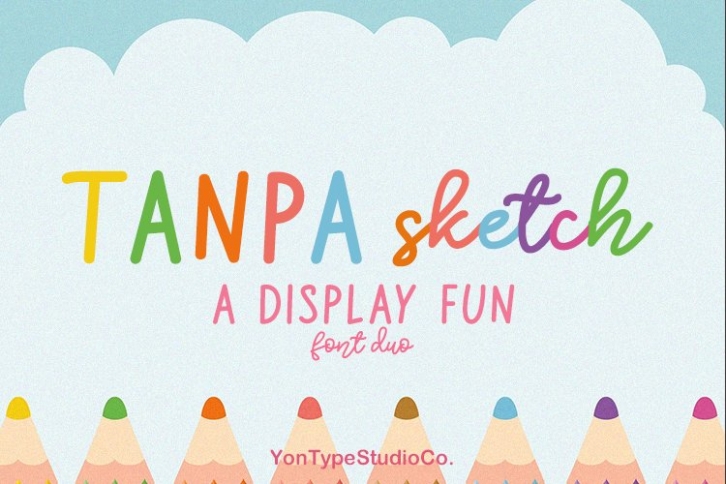
Tanpa Sketch Duo is a trendy and unique font with an authentic style. It was designed by YonTypeStudioCo and it's a great choice for creative people who need such a font. It was released on September 8, 2020 and the file size is 20.1 MB. Tanpa Sketch Duo will add an organic vibe to any design idea!